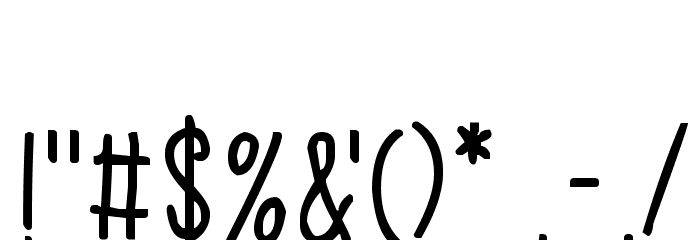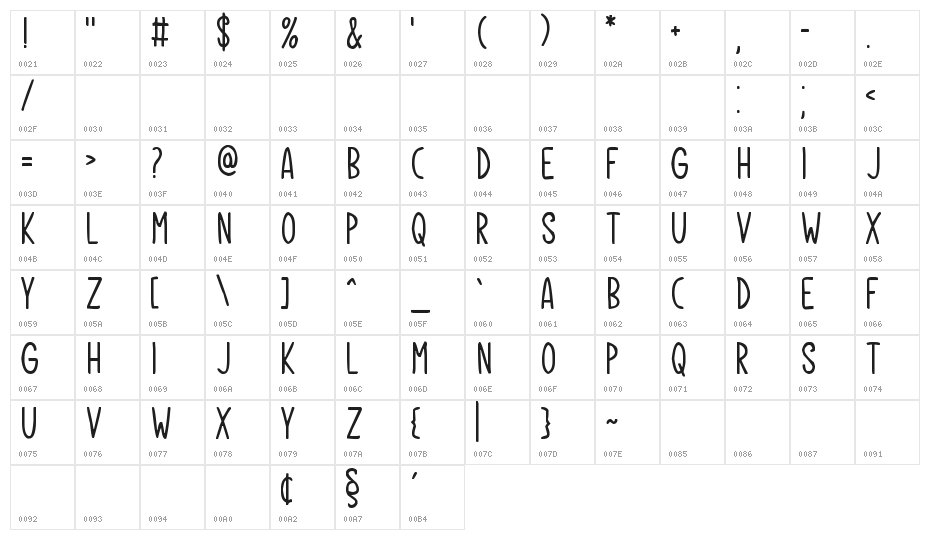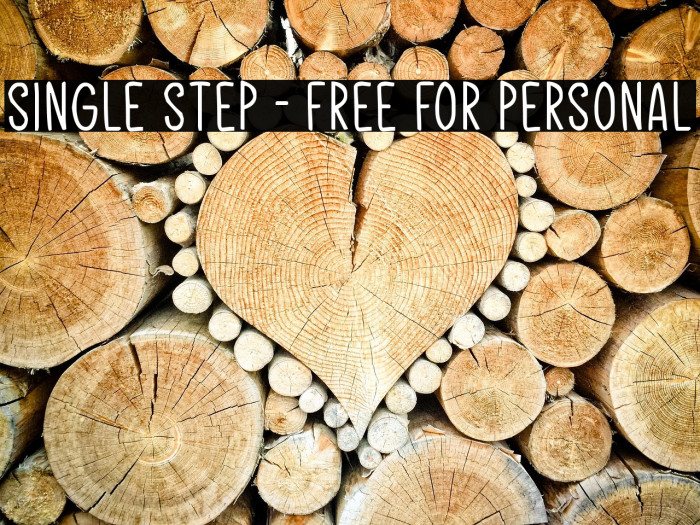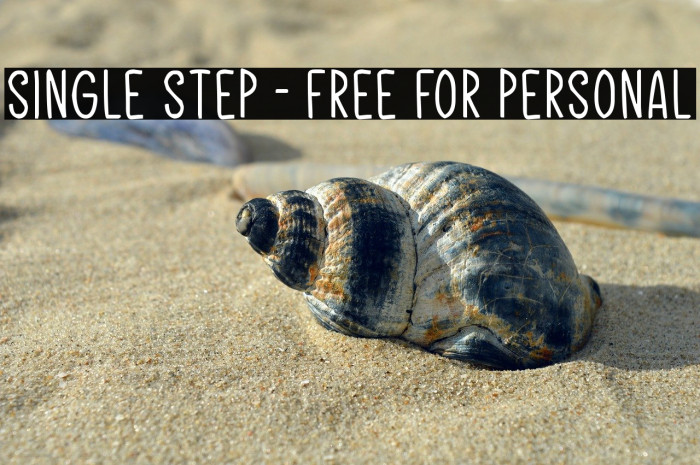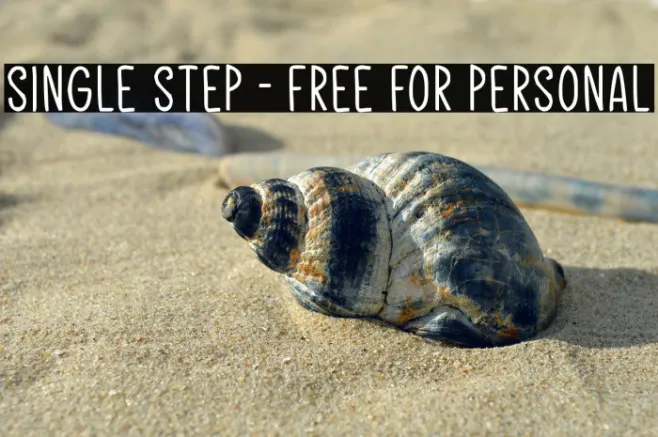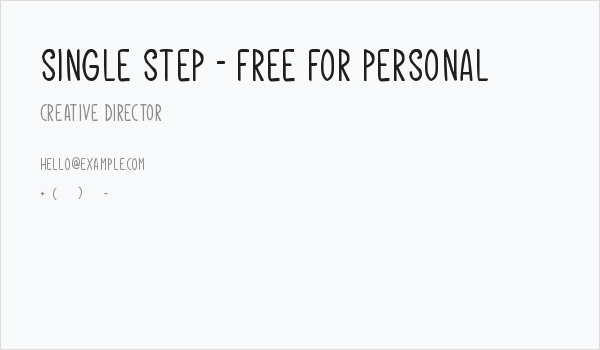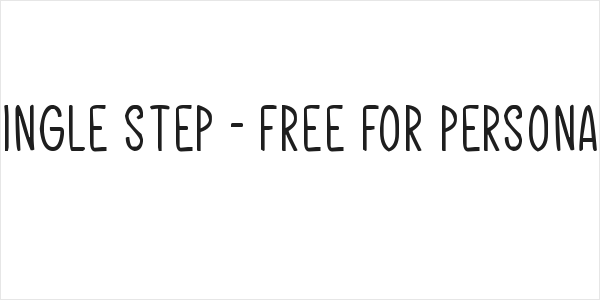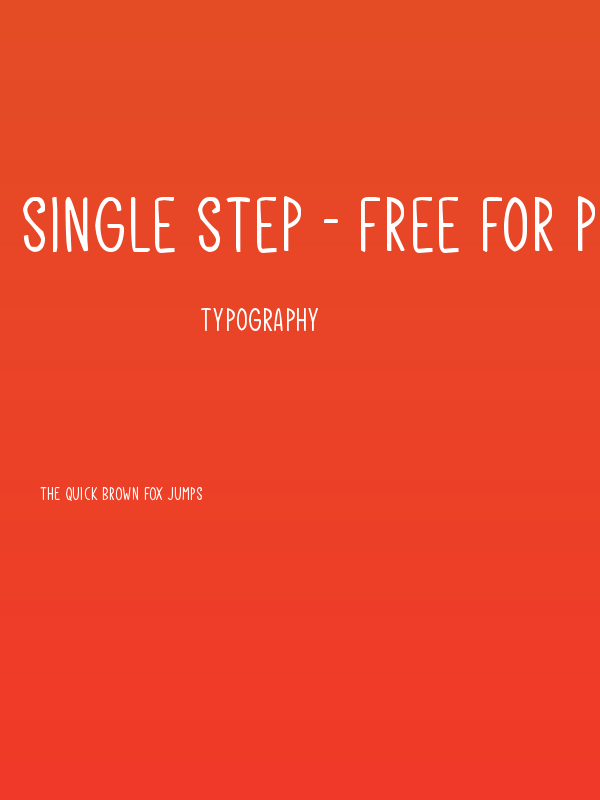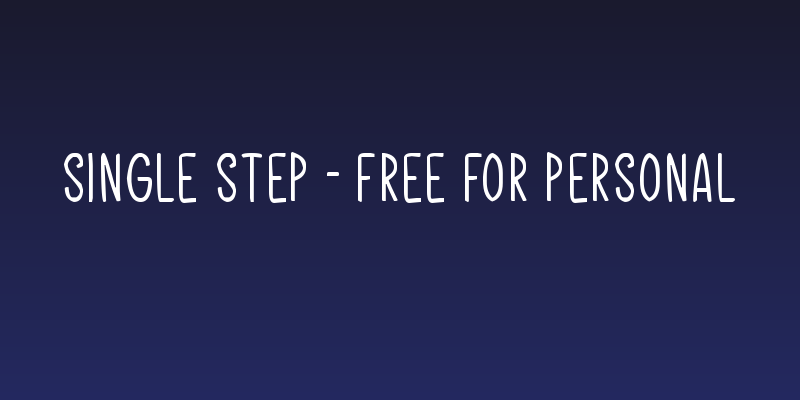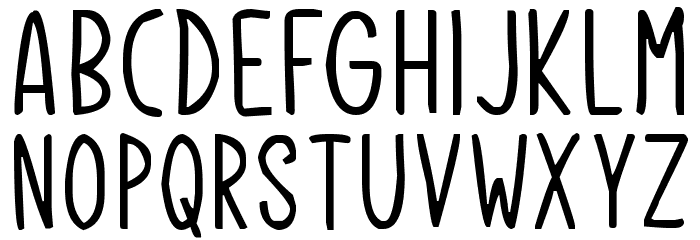
Single Step - Free For Personal Font
Single Step - Free For Personal Description
This font features a playful and informal handwritten style, characterized by its tall, narrow letters with rounded edges. The uppercase and lowercase letters maintain a consistent height, giving it a uniform appearance. The strokes are smooth and slightly irregular, adding to its casual charm. The numbers and special characters follow the same whimsical style, making it suitable for creative and lighthearted projects. The font's simplicity and readability make it versatile for various design needs.
| Proposed Projects | Ideal for children's books, greeting cards, playful branding, and casual invitations. |